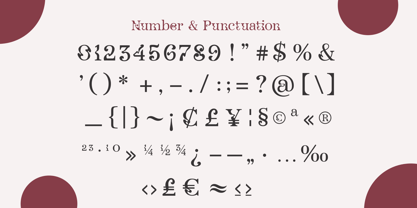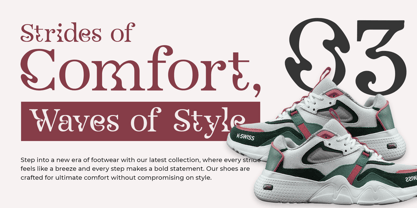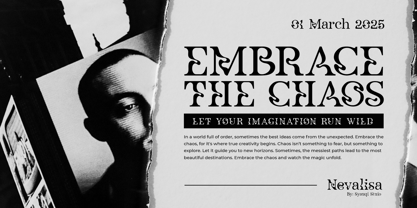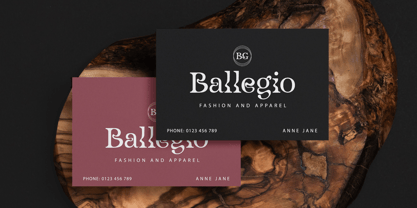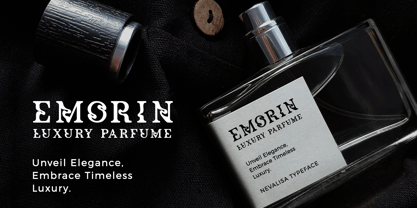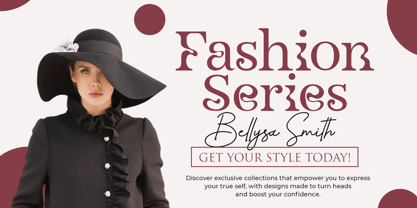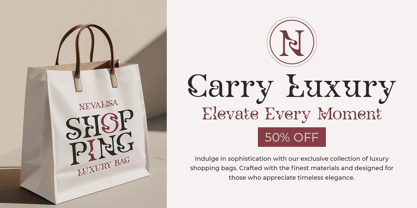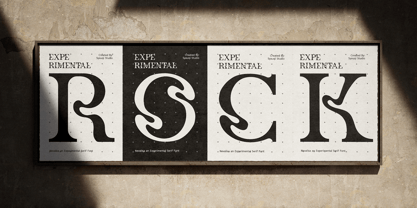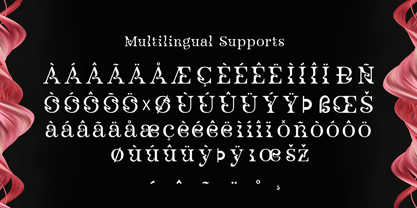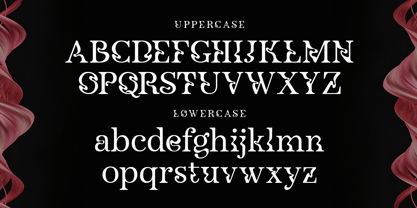
Nevalisa
The Nevalisa Font Family was designed by Muhammad Asroful Umam and published by Syauqi Studio. Nevalisa contains 6 styles and family package options.
Nevalisa: An Experimental Serif Typeface
Nevalisa is not just a font, it’s a statement. This Experimental Serif font pushes the boundaries of traditional typography, dynamic serifs with elegant, refined letterforms. With its distinctive, avant-garde style, Nevalisa captivates attention and evokes creativity at first glance. Perfect for designers seeking to break free from the conventional, Nevalisa’s unique character and flair will elevate your branding, editorial designs, and projects that demand an artistic touch.
Inspired by the fusion of modernity and classic elegance, Nevalisa brings both sophistication and innovation to every piece it graces. Its sharp serifs and unconventional structure offer a fresh perspective on what serif fonts can be. Whether you're designing for high-end fashion, cutting-edge technology, or an artsy creative brand, Nevalisa ensures your message stands out with undeniable charm.
Nevalisa is the perfect font family for projects where sophistication meets creativity. It shines in both print and digital designs, making it ideal for:
• Brand Identity: Give your brand a high-impact visual with Nevalisa. Its bold presence adds instant credibility and elegance to logos, business cards, and brand materials.
• Editorial Design: From fashion magazines to artistic journals, Nevalisa delivers a high-end editorial feel that resonates with style-conscious audiences.
• Web Design: Bold yet readable, Nevalisa works wonders in both headers and body text, adding a touch of innovation to websites and blogs.
• Posters and Advertising: Make a memorable impression with posters, banners, and ads using Nevalisa’s dramatic appeal to grab attention in crowded spaces.
• Packaging: For premium products, Nevalisa brings a sense of luxury and exclusivity, making it ideal for packaging designs in the beauty, fashion, or tech industries.
• Invitations and Event Branding: With its unique character, Nevalisa makes a perfect choice for special event invitations, adding a contemporary and refined look.
• Creative Projects: Use Nevalisa for album covers, book titles, and any project that demands a fresh, artistic, and cutting-edge typographic design.
Nevalisa isn’t just a font, it's an experience, a bridge between the classic and the modern, the refined and the daring. Dare to stand out and let Nevalisa give your project the bold identity it deserves.